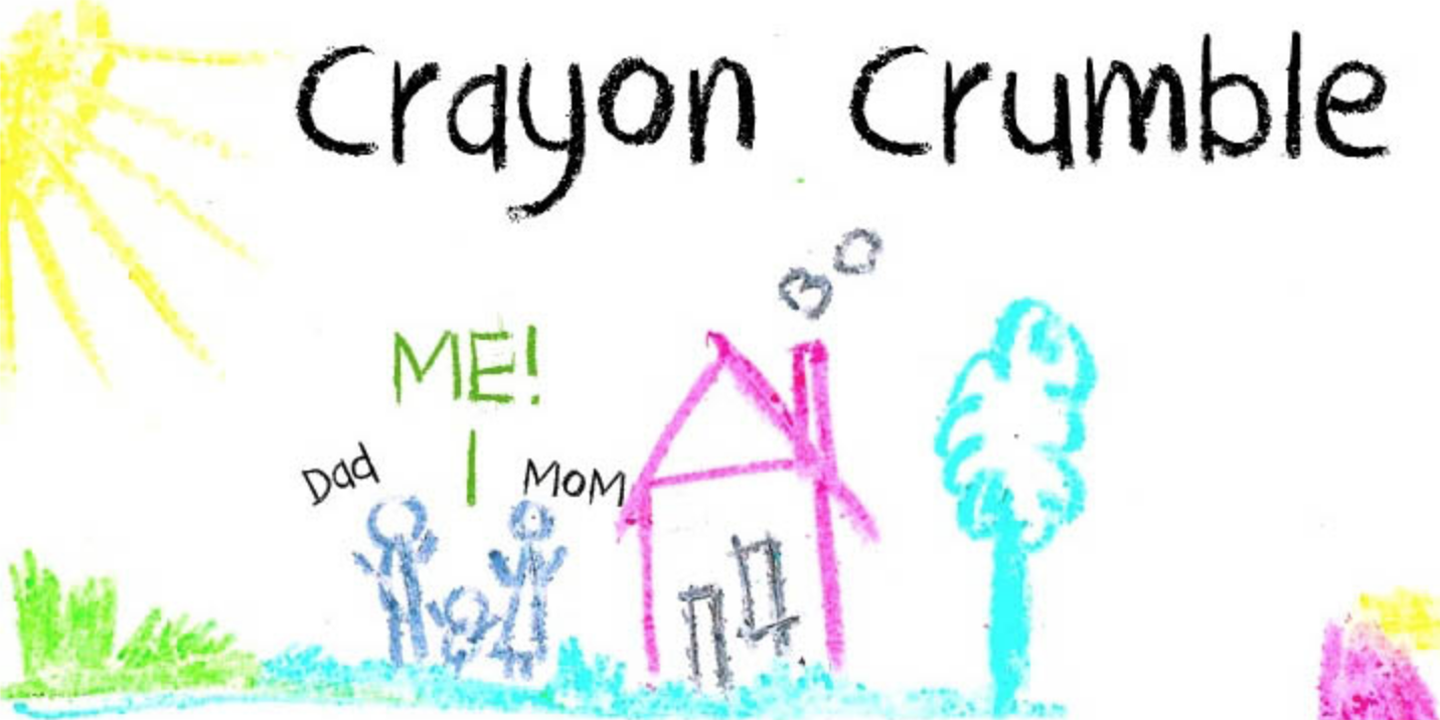
Crayon Crumble Font is perfect for children's book covers, daycare center signage, educational materials, kids' party invitations, toy packaging, nursery decorations, art class projects, and playful brand identities that require authentic hand-drawn typography with childlike creativity and innocent charm.
This Crayon Crumble Font is exciting because it authentically captures the texture and spontaneity of real crayon drawings with irregular strokes and crumbly edges that perfectly mimic children's artwork, featuring organic imperfections that convey genuine childhood creativity while maintaining excellent readability for professional design applications.
The Crayon Crumble Font family includes textured weights with authentic crayon styling, complete character sets with playful uppercase and lowercase letters, whimsical numerals, fun punctuation, and creative symbols that provide comprehensive typography solutions for child-focused design projects requiring authentic hand-drawn aesthetics and innocent appeal.
Perfect for creating engaging children's communications and playful brand materials, Crayon Crumble Font Free Download delivers the authentic crayon typography that transforms text into joyful expressions of childhood creativity and wonder. This distinctive typeface brings the magic of children's artwork into professional design, making it essential for projects celebrating childhood, education, creativity, and any design requiring genuine innocence, playful charm, and the authentic texture of childhood imagination.